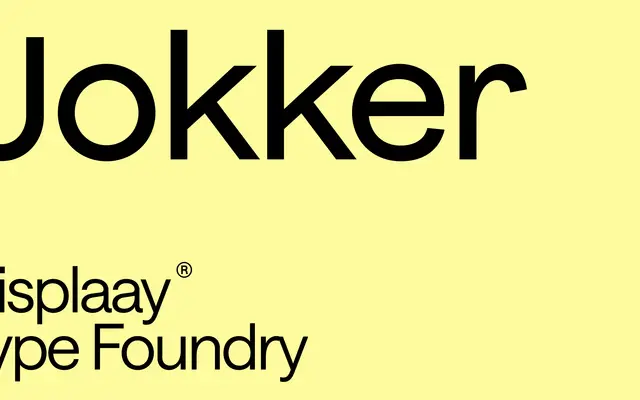
A seven-weight grotesque with a self-consciously odd personality, available as a variable font with weight and slant axes.
Jokker spans 14 styles across seven weights from Thin to Heavy, each with a matching italic, and ships as a variable font with weight and slant axes. The foundry bills it as a 'Strange Grotesque', signalling a deliberate departure from neutral utility towards something more characterful and display-oriented. Its card-sharp promotional framing and chaotic specimen imagery suggest it is aimed at branding, editorial and cultural projects that want a grotesque with some edge.
Described by the foundry as a 'Strange Grotesque', Jokker follows the broad tradition of gothic and grotesk sans-serifs with an eccentric, characterful edge suited to display use.